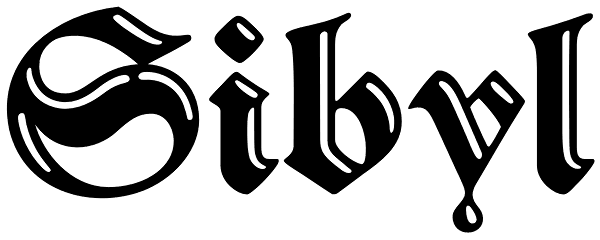
Sibyl
Sibyl is a beautiful display letter rich in structure, sumptuous in finish, and exquisitely detailed throughout. What amounts to a rarity among rarities—an inline schwabacher—required many hours study of traditional schwabacher fonts...
Sibyl